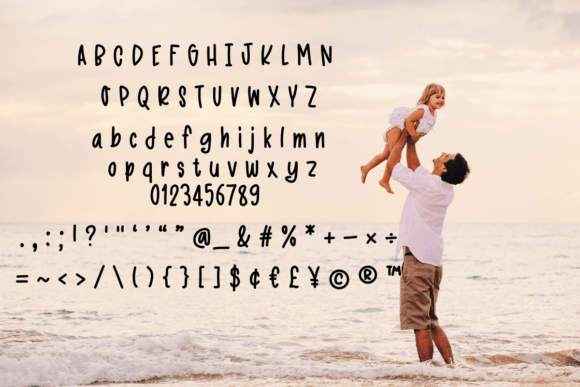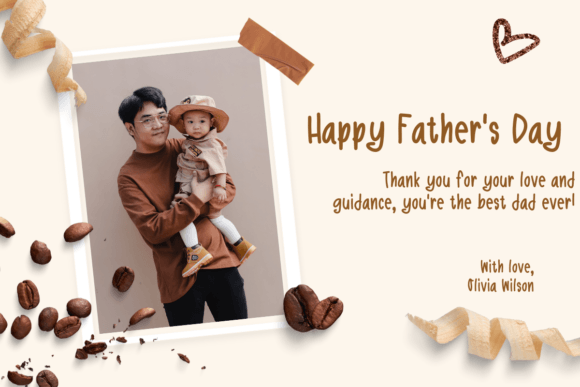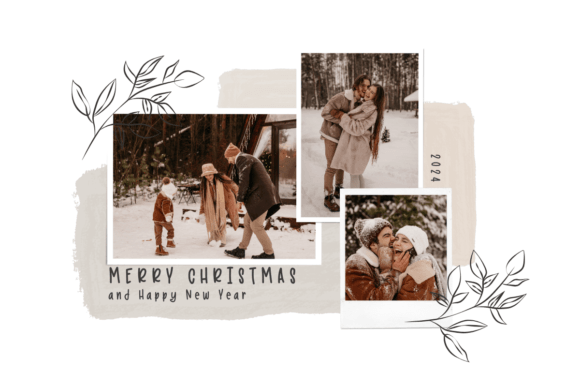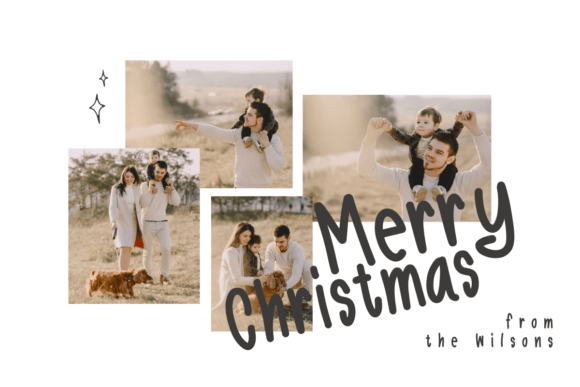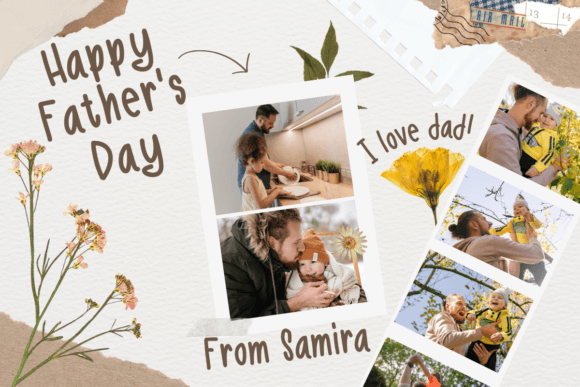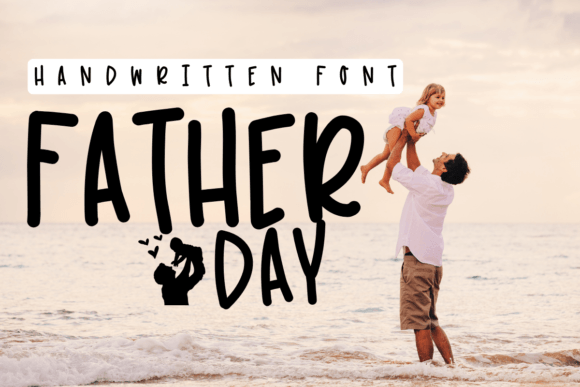
Introducing Father Day Font: The Perfect Addition to Your Design Collection
Are you a designer or crafter looking for a unique and friendly font to add a personal touch to your projects? Look no further than Father Day Font! This sweet and friendly handwritten font is perfect for creating a wide range of designs, from greeting cards and invitations to posters and social media graphics.
What Makes Father Day Font So Special?
Father Day Font is a one-of-a-kind handwritten font that boasts a natural and unique style. Its distinctive look and feel make it incredibly fitting for a large pool of designs, allowing you to let your imagination run wild. Whether you’re creating a heartfelt Father’s Day card or a fun and playful poster, this font is sure to bring a touch of warmth and personality to your project.
The versatility of Father Day Font is one of its most appealing features. With this font, the only limit is your imagination! You can use it to create:
- Heartfelt Father’s Day cards and gifts
- Fun and playful posters and flyers
- Personalized invitations and announcements
- Engaging social media graphics and posts
- Beautiful handmade crafts and DIY projects
Why Choose Father Day Font?
So why choose Father Day Font over other fonts on the market? Here are just a few reasons why designers and crafters love this font:
- Unique and distinctive style: Father Day Font has a one-of-a-kind look and feel that sets it apart from other fonts.
- Easy to read and use: Despite its unique style, Father Day Font is incredibly easy to read and use, making it perfect for a wide range of projects.
- Highly versatile: This font can be used for everything from formal to informal designs, making it a great addition to any design collection.
- Perfect for personal projects: Whether you’re creating a design for a client or for personal use, Father Day Font is a great choice for adding a personal touch.
Tips for Using Father Day Font
To get the most out of Father Day Font, here are a few tips to keep in mind:
- Experiment with different sizes and colors: Don’t be afraid to try out different sizes and colors to see what works best for your design.
- Pair it with other fonts: Father Day Font pairs well with a wide range of other fonts, so feel free to get creative and experiment with different combinations.
- Use it for headings and titles: The unique style of Father Day Font makes it perfect for headings and titles, adding a touch of personality to your design.
Whether you’re a seasoned designer or a crafty DIY enthusiast, Father Day Font is a great addition to your toolkit. Its natural and unique style makes it incredibly fitting for a wide range of designs, and its ease of use makes it perfect for projects of all sizes. So go ahead, get creative, and see what amazing designs you can create with Father Day Font!